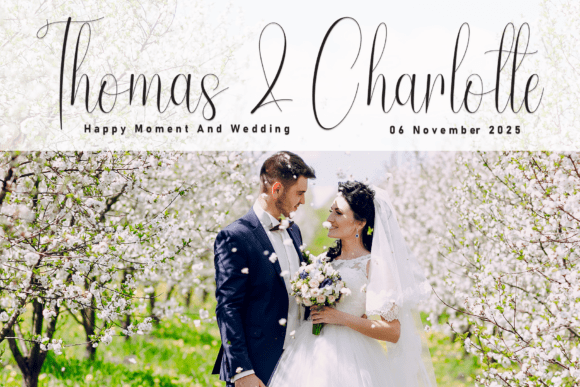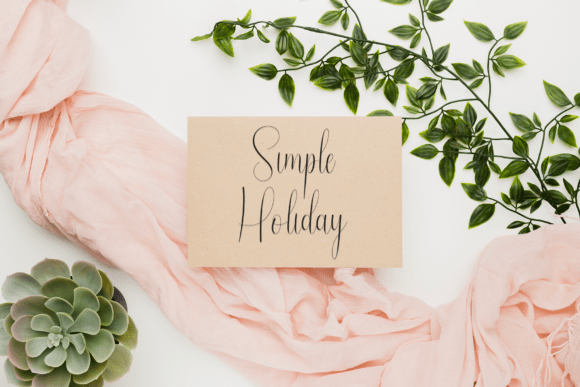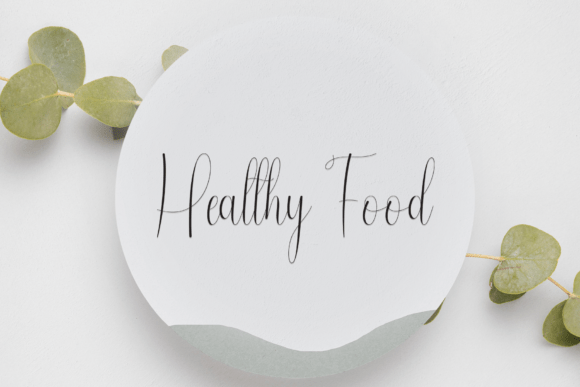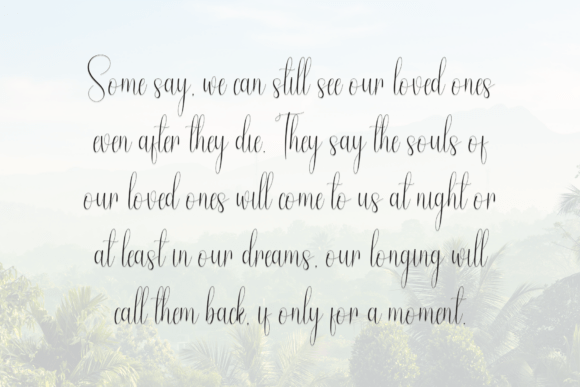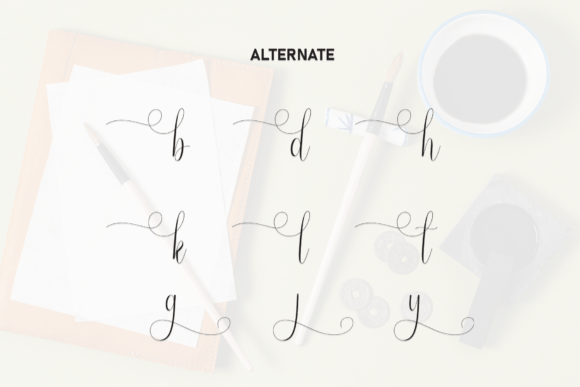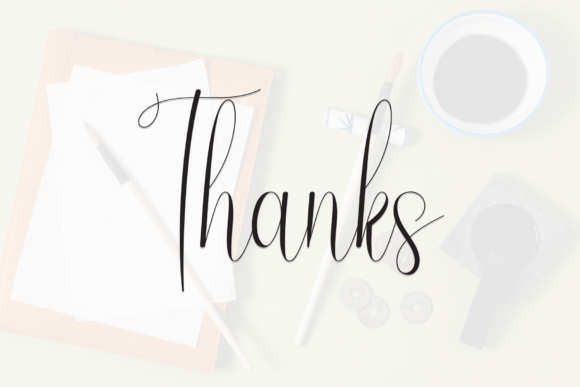
The Elegance of Calligraphy: A Timeless Font for Modern Design
A Closer Look at Calligraphy Font
The Calligraphy Font is a meticulously designed typeface that brings timeless sophistication to contemporary design. With its elegant ascenders, long sweeping swashes, and delicate line weights, it’s perfect for formal, romantic, or editorial projects. This font evokes beauty, femininity, and poise in every stroke, making it a versatile addition to any designer’s toolkit.
Inspiration and Design
The inspiration for Calligraphy stems from traditional copperplate and pointed-pen lettering, known for its refined curvature and rhythmic flow. The font was created to bridge classical calligraphic art with modern digital clarity, offering designers a typeface that feels both ornamental and professional. Unlike many script fonts that focus heavily on excessive flourish, Calligraphy strikes a more purposeful balance: its ornate loops and ligatures are visually stunning but never overpower the legibility.
- ✅ Elegant and sophisticated design that’s perfect for formal projects
- ✅ Delicate line weights and swashes that add a touch of elegance
- ✅ Versatile and can be used for a variety of design projects, from wedding invitations to editorial layouts
- ⚠️ Some users may find the font a bit too ornate for very casual or playful projects
- ⚠️ Limited use of uppercase letters, which may require creative workarounds for designers
Q: What inspired the creation of the Calligraphy font?
A: The Calligraphy font was inspired by traditional copperplate and pointed-pen lettering, known for its refined curvature and rhythmic flow.
Q: Is the Calligraphy font suitable for digital use?
A: Yes, the Calligraphy font is designed to be versatile and works beautifully in both print and digital formats.